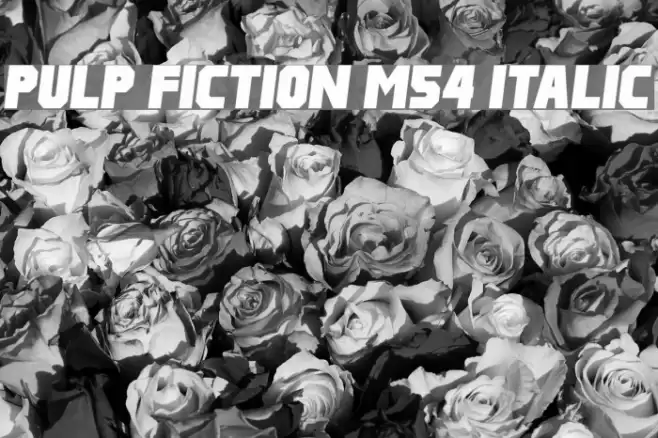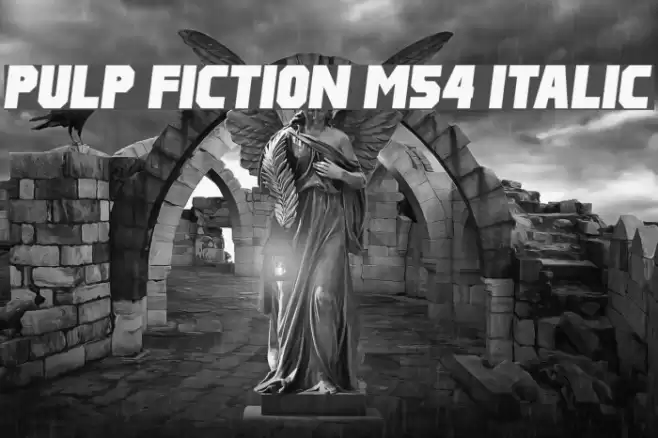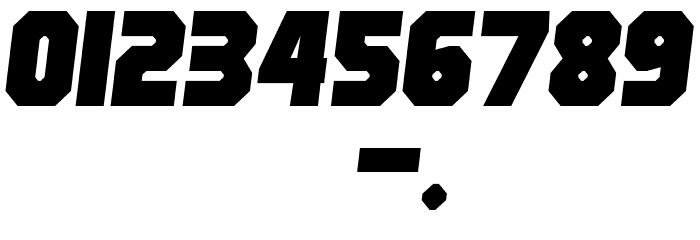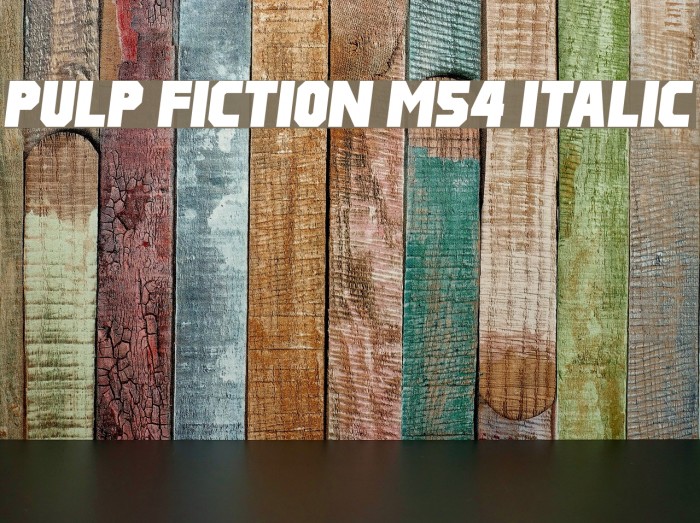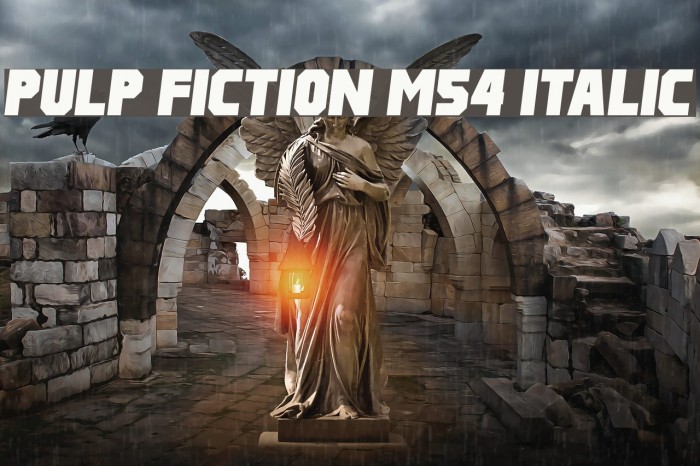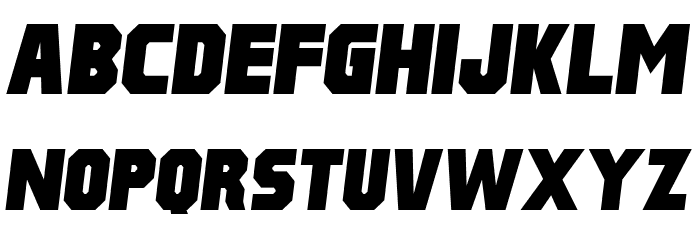
Pulp Fiction M54 Italic Font
Pulp Fiction M54 Italic Description
This font features a bold and dynamic style with a strong geometric influence. The characters are italicized, giving them a sense of motion and energy. The angular design and thick strokes create a powerful visual impact, making it suitable for attention-grabbing headlines and titles. The uppercase letters are particularly striking, with sharp edges and a slightly condensed form. The numerals and special characters maintain the same bold aesthetic, ensuring consistency across all text elements.
A bold, italicized font with geometric and dynamic characteristics from Uncategorized fonts.
- Proposed Projects: Ideal for movie posters, video game titles, branding for action-oriented products, and any project requiring a bold statement.